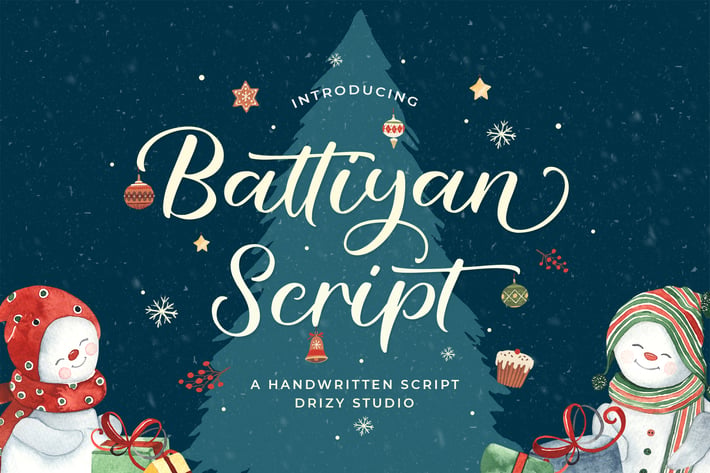
Battiyan Script - Script Font
Battiyan Script is a Script Font from Drizy studio. Offering all the basic styles you will need especially Christmas theme project.
Battiyan Script Features:
Multilinguals
Alternates
Ligatures